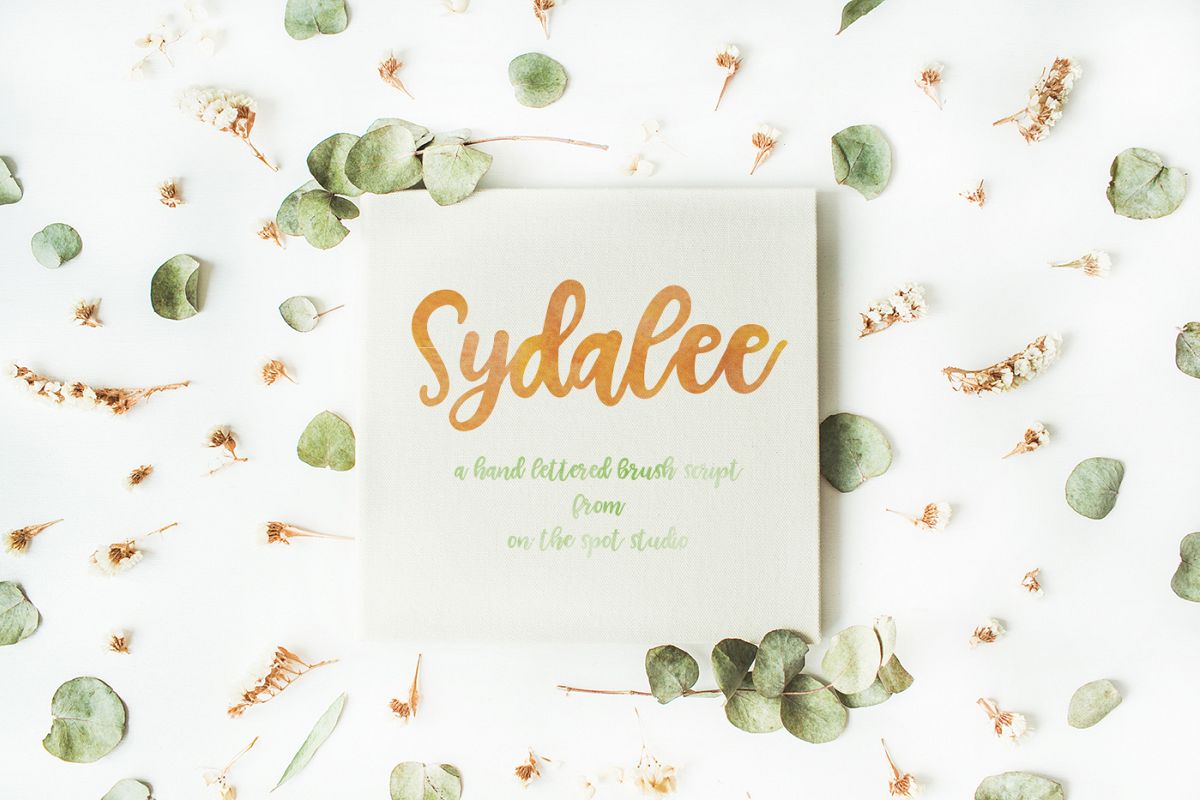
Sydalee
Sydalee is a brand new script font from On The Spot Studio Perfect for Logos, Branding, Crafting, Prints & More! ? Commercial Use OK! Please do NOT resell, redistribute, or create SVG alphabets of this font. ? Includes OTF and TTF in zipped download file ?
Sydalee